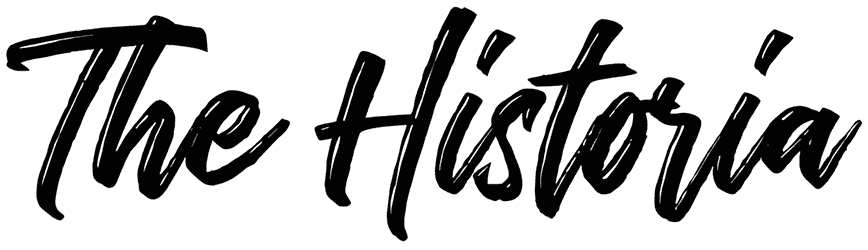
The Historia Font
The Historia is a brush font that you can use for chic, artsy-designed typography! The cursive, hand-drawn quality and its spirited, pleasant characters are attractive. The inviting paintbrush-style letterforms, which don’t contain numbers and punctuation, are suitable for t-shirts, books, covers, flyers, and invitations by adding a classy look.